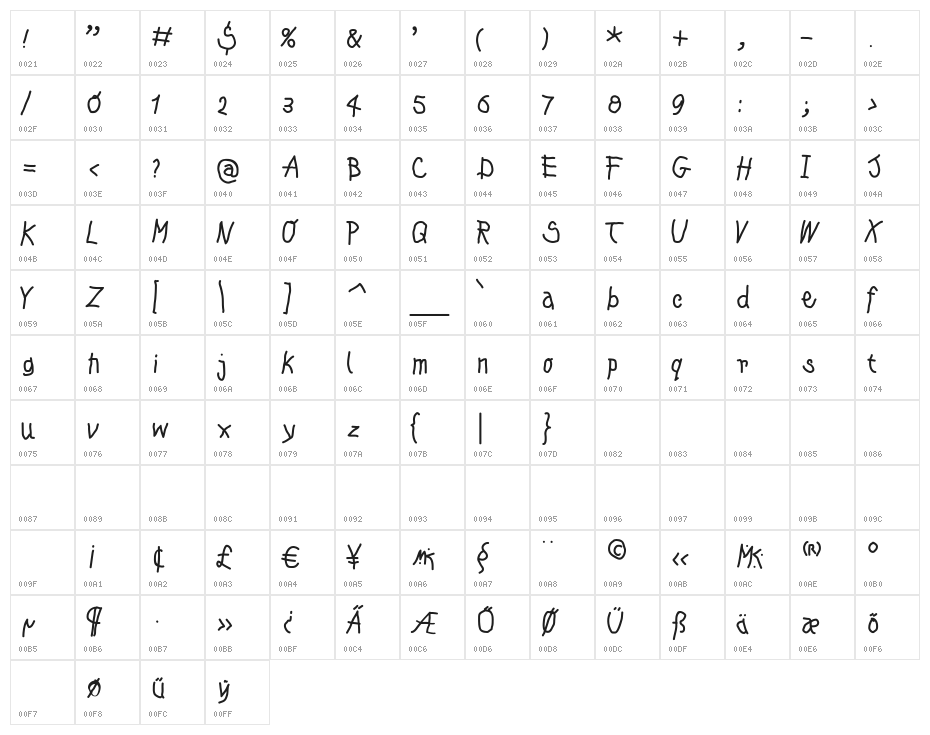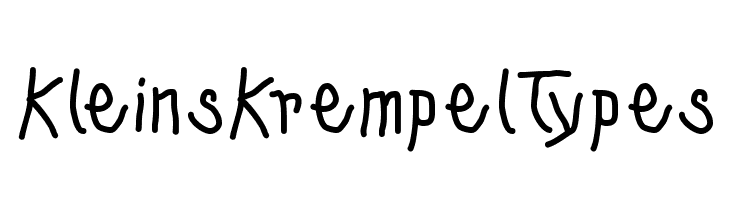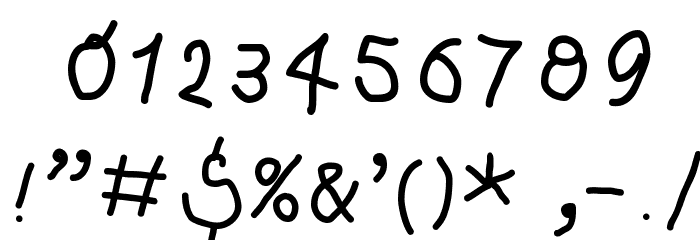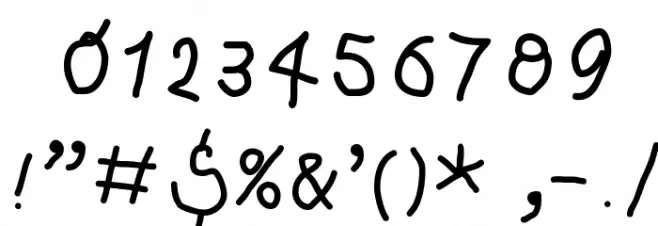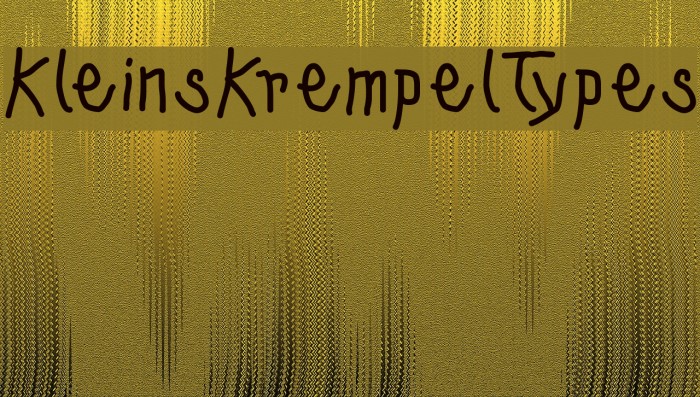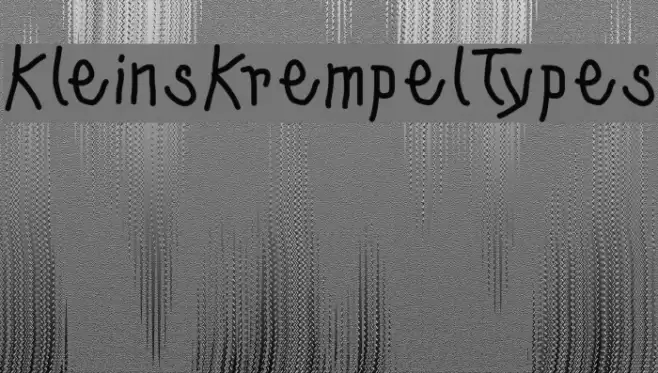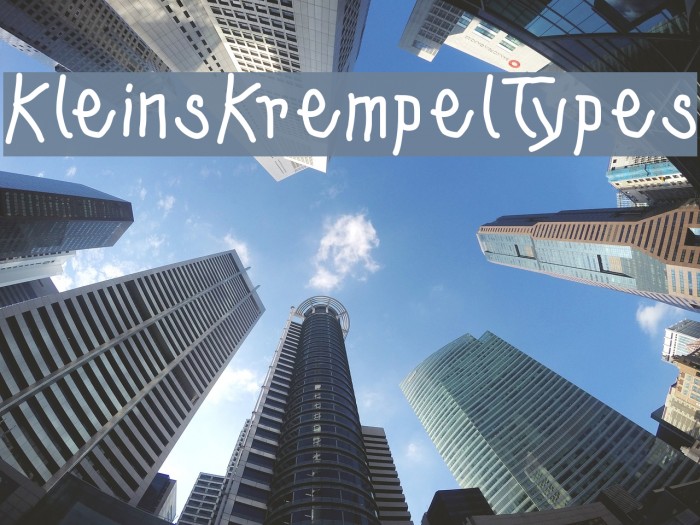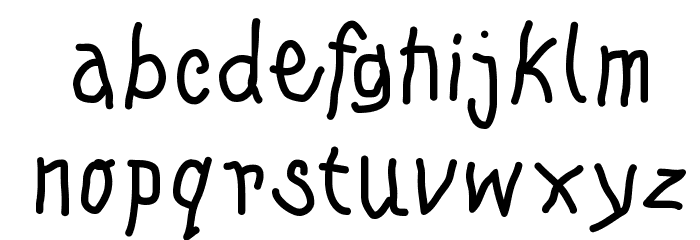
KleinsKrempelTypes Font
KleinsKrempelTypes Description
This font exudes a playful and informal vibe, characterized by its handwritten style. The letters are slightly irregular, giving it a personal and approachable feel. The uppercase and lowercase letters maintain a consistent style, with rounded edges and a casual flow. The numbers and special characters follow the same aesthetic, ensuring uniformity across all characters. Its unique charm lies in its imperfect lines and organic shapes, making it ideal for projects that require a touch of whimsy and creativity.
| Overall Style | Casual |
| Use Case | Headlines, Informal text, Creative projects |
| Proposed Projects | Ideal for children's books, greeting cards, personal blogs, and creative branding projects. |